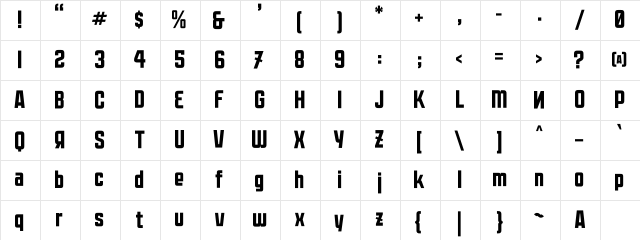
Complete Moshka Regular glyph index. Displaying only characters natively supported by Moshka Regular font.
Moshka is a composed and adaptable typeface that performs quietly and consistently across a wide range of design contexts.